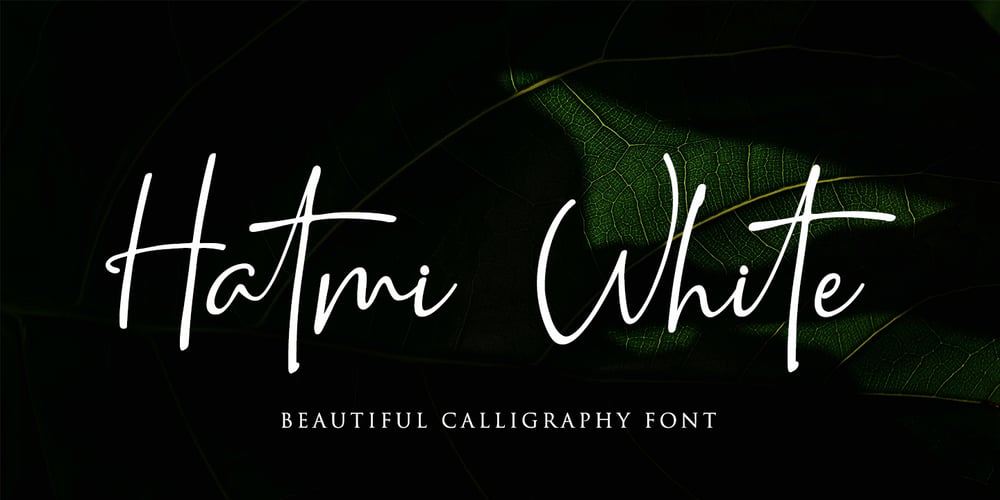
Hatmi White Font Family was designed by Dian Haniffan Hadi and published by Beary. Hatmi White contains 1 styles and family package options. Hatmi White is an elegant handwritten font. Every single letter has been carefully crafted to make your text looks beautiful. This modern script will be perfect for many different project such as photography, watermark, quotes, blog header, poster, wedding, branding, logo, fashion, apparel, letter, invitation, stationery, etc. Hatmi White has Multi-lingual support.